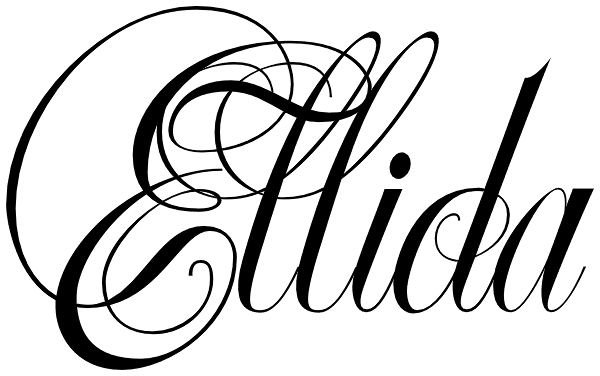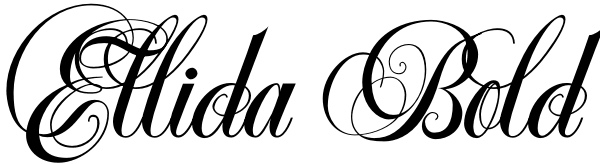
Ellida
Ellida is a very elaborate and elegant script in the tradition of the 18th-century English calligrapher George Bickham and the 19th-century American calligrapher Platt Rogers Spencer. I really enjoyed designing this script and maybe one day I will...